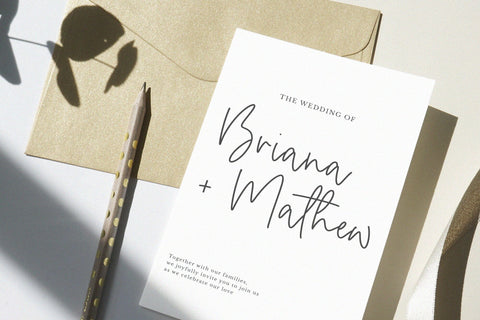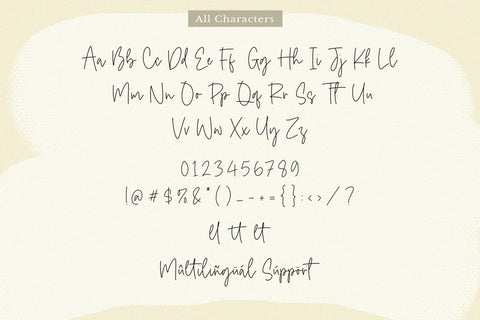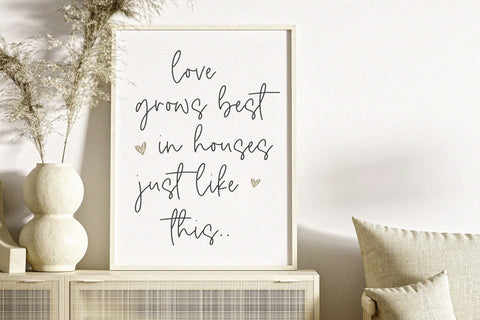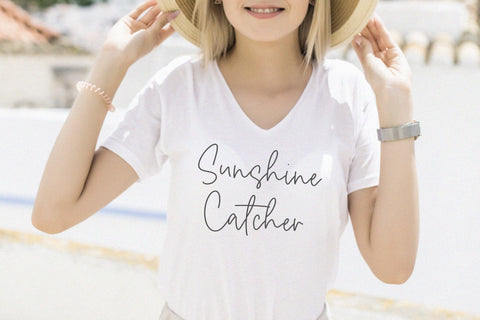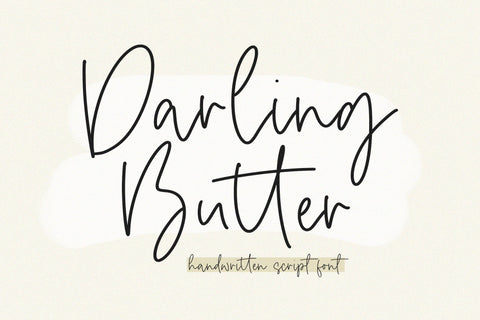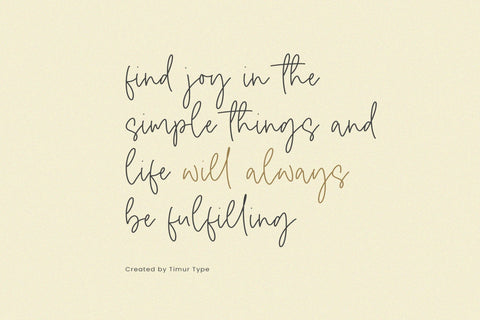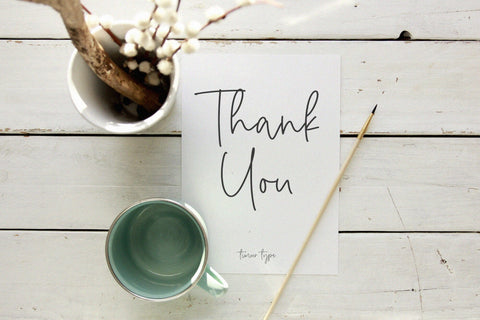
Darling Butter Handwritten Font
Darling Butter is a Handwritten Font, which was created with great care and specially created for you .
Darling Butter is best for:
- logos, branding, & Signatures.
- Flyers, Album cover, Magazine, & Advertisements.
- Website design , design blogs, & fashion.
- Quote graphics for social media.
- and also it works great for other projects.
- Character Set
- Numerals and Punctuation (OpenType Standard)
- Accents (Multilingual characters)
-Ligature